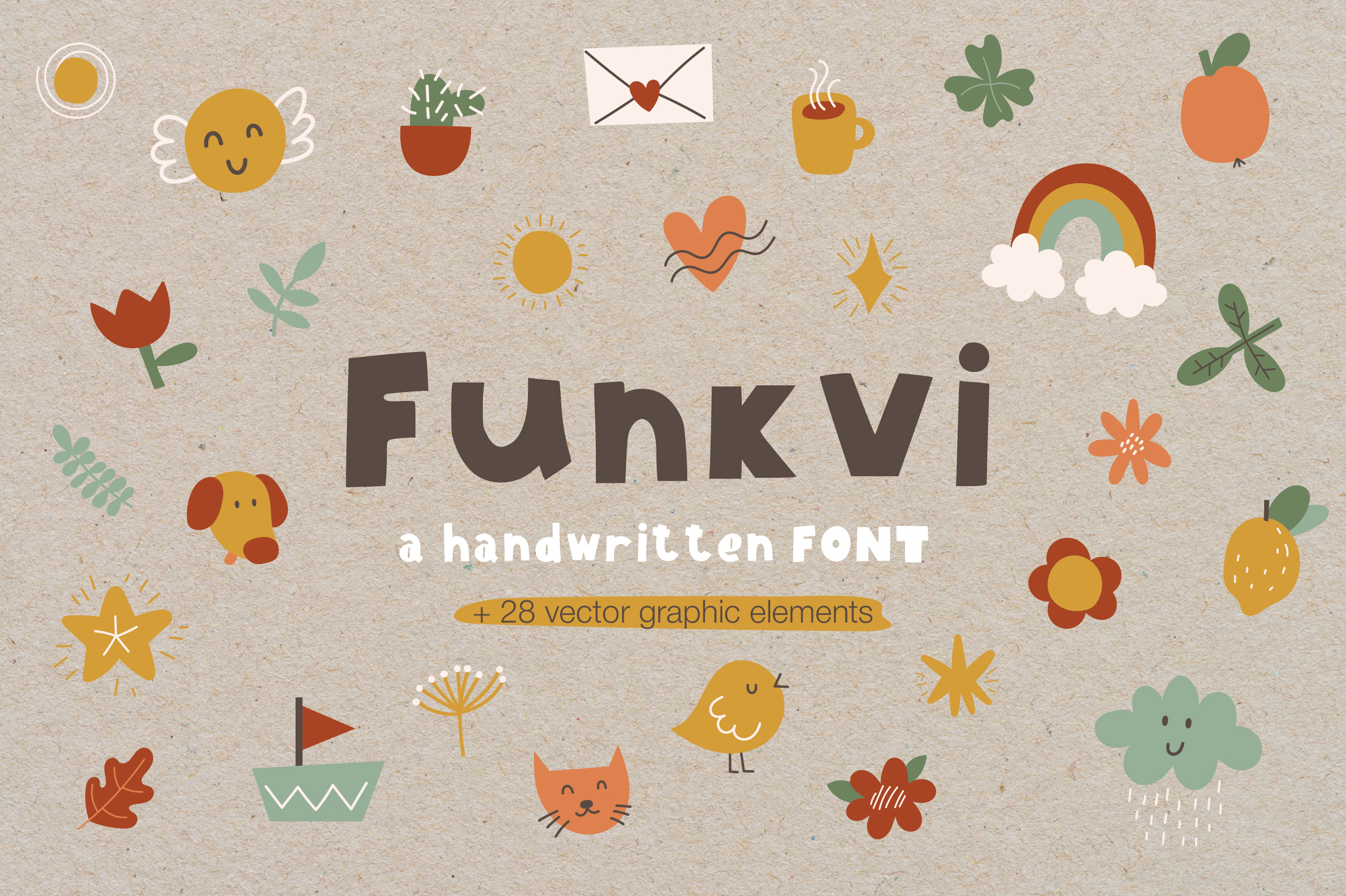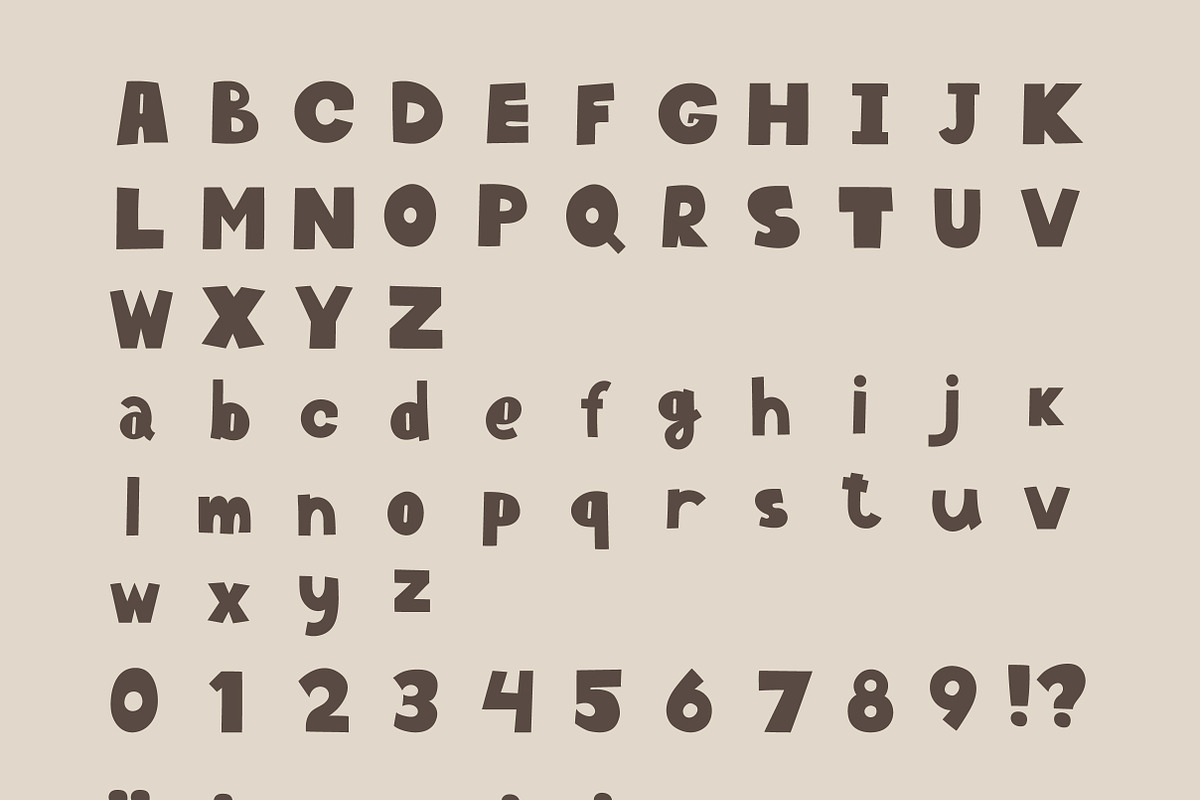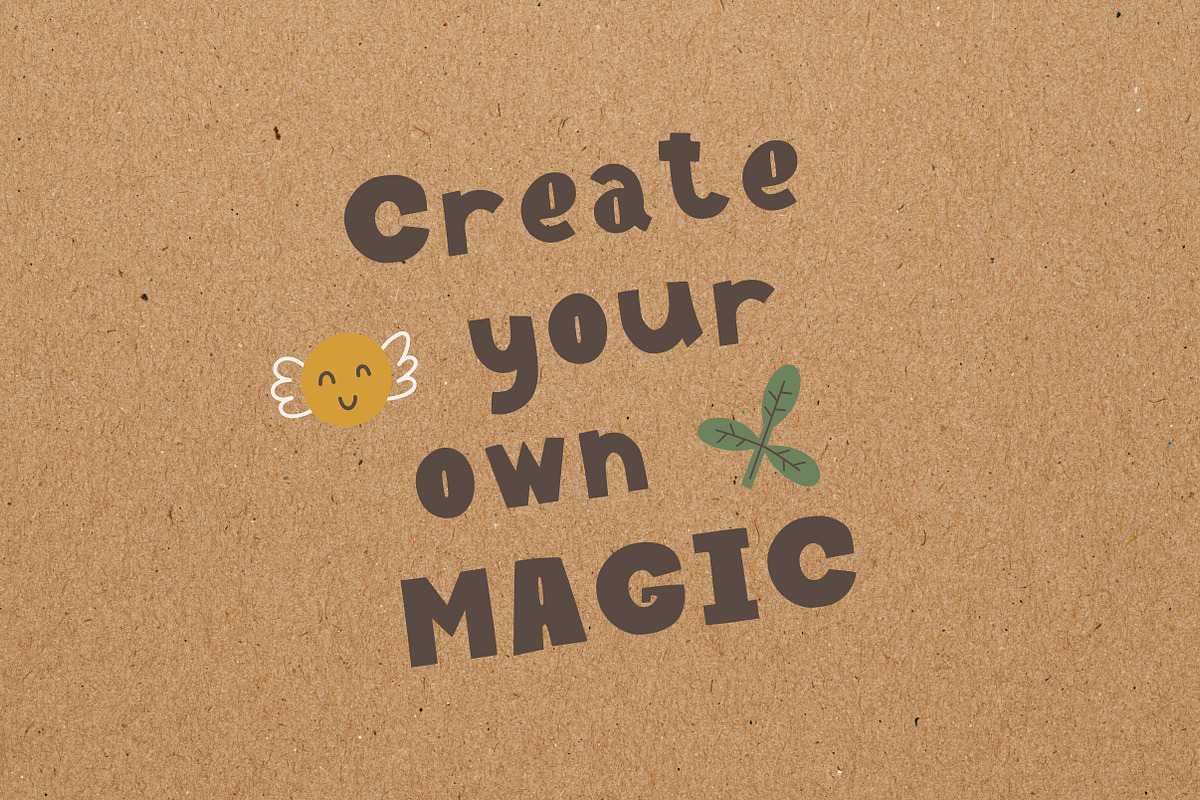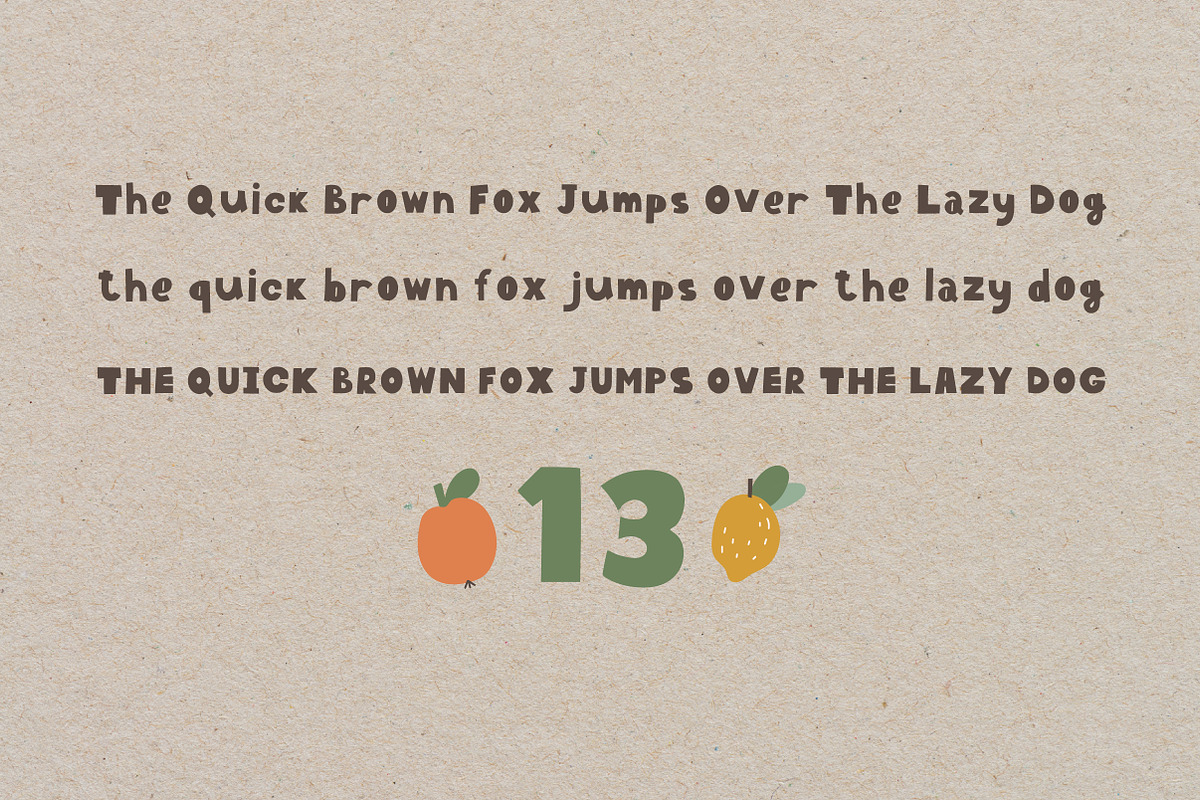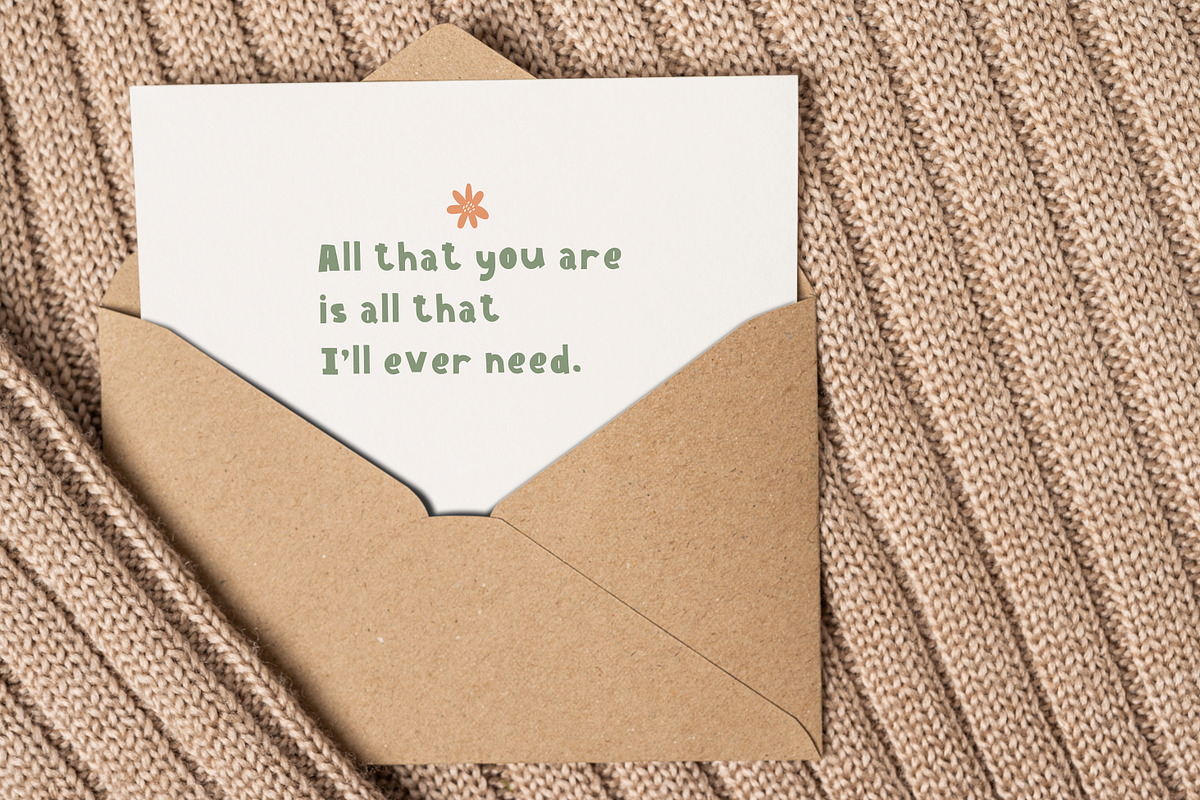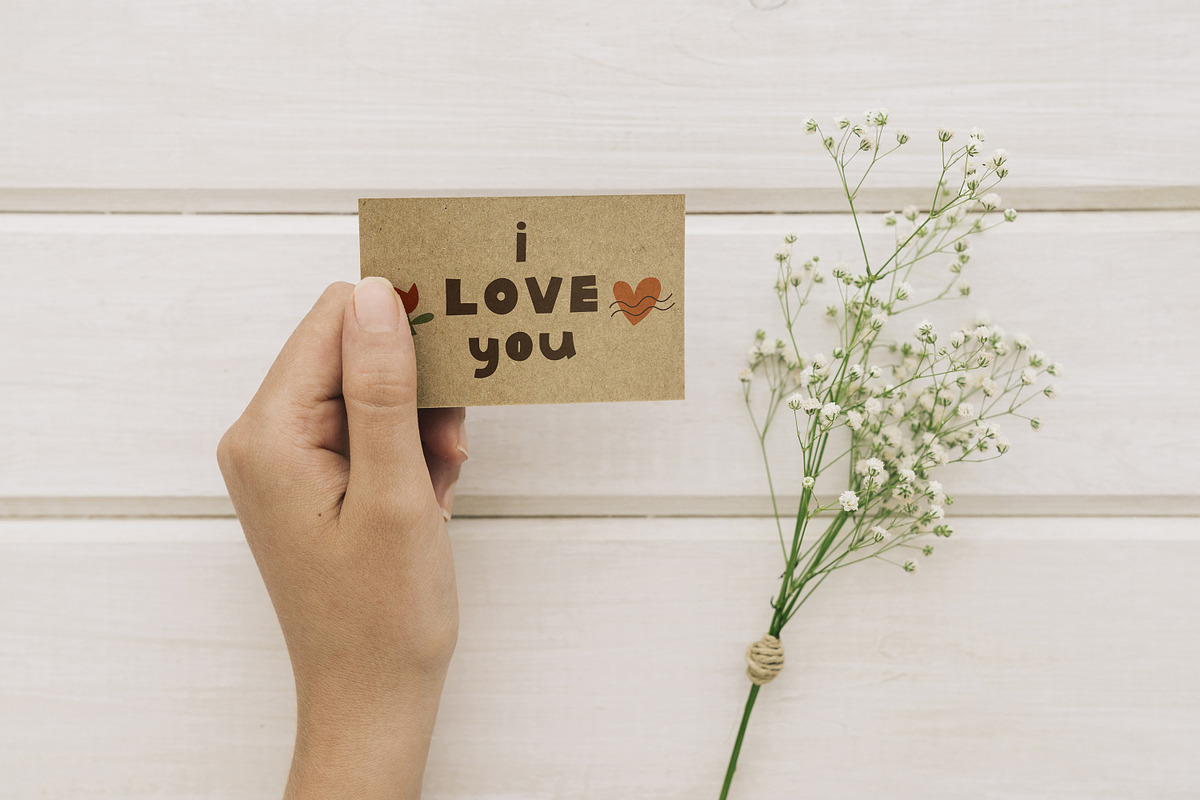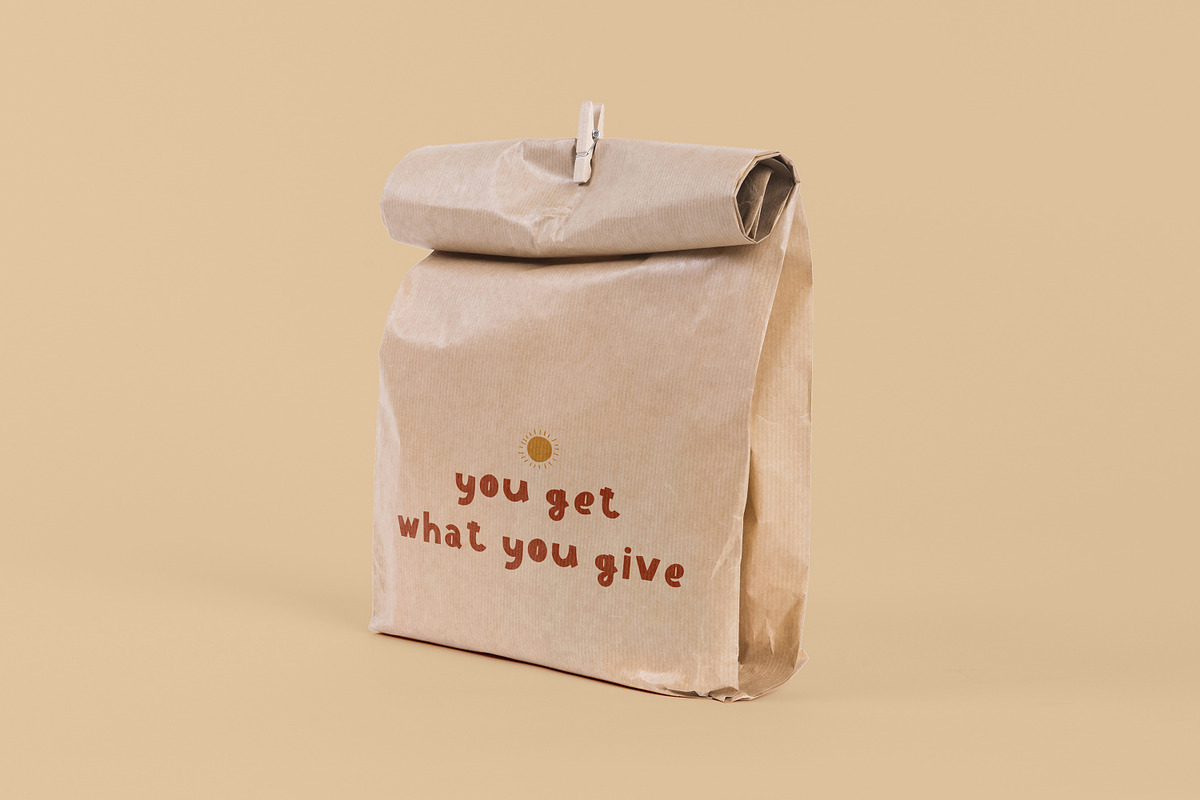
Funkvi handwritten FONT
''Funkvi'' is cute handwritten font. It Will be perfect for the decoration of postcards, posters, and different printing products.